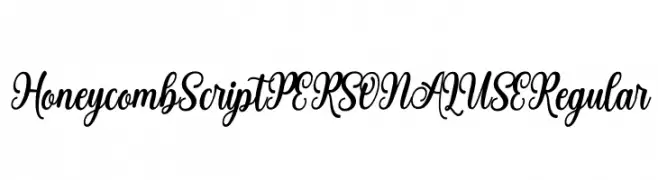
A playful, whimsical script font with flowing, interconnected letters.
A lively, cursive font with elegant, flowing strokes.
A playful and casual script font with thin, flowing strokes and a hand-drawn feel.
A flowing, elegant script font with a handwritten aesthetic.
A flowing, cursive script font with elegant, interconnected letters.
A playful and elegant script font with smooth, flowing cursive letters.
A flowing, elegant script font with interconnected characters and a modern twist.
A graceful and elegant script font with flowing, cursive strokes.